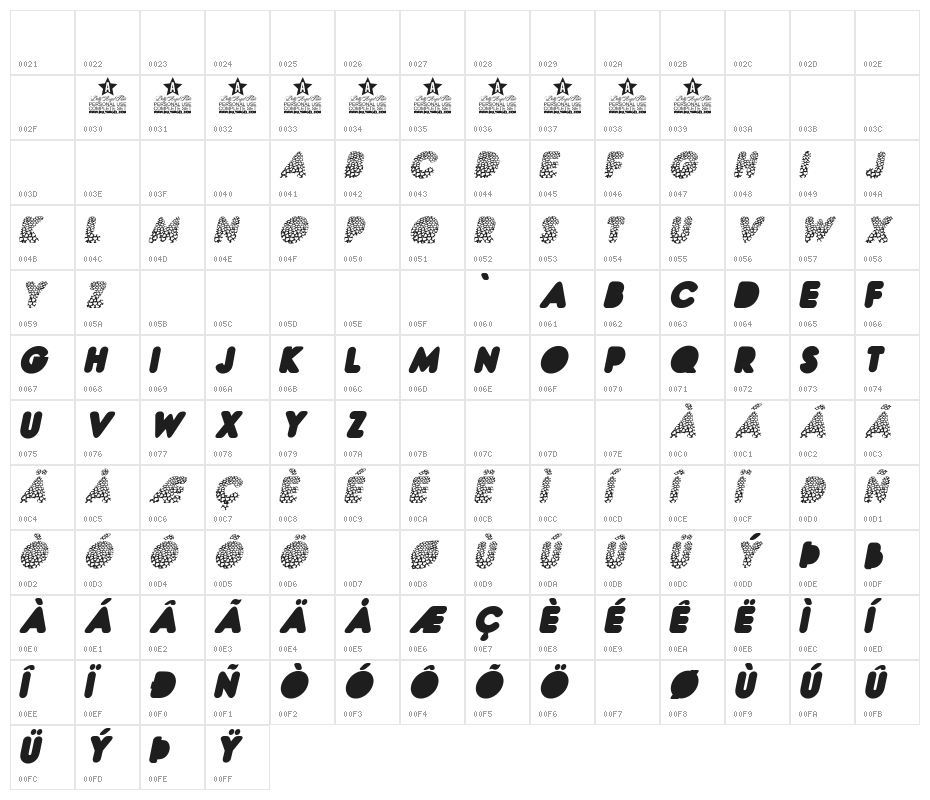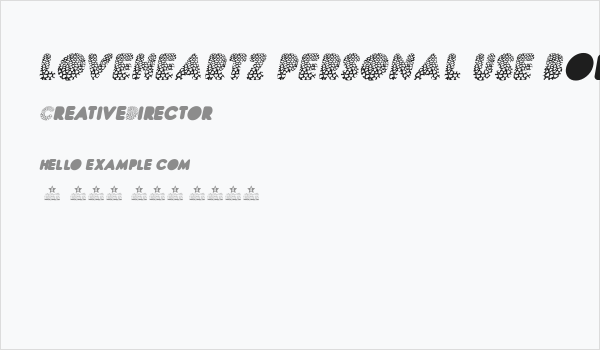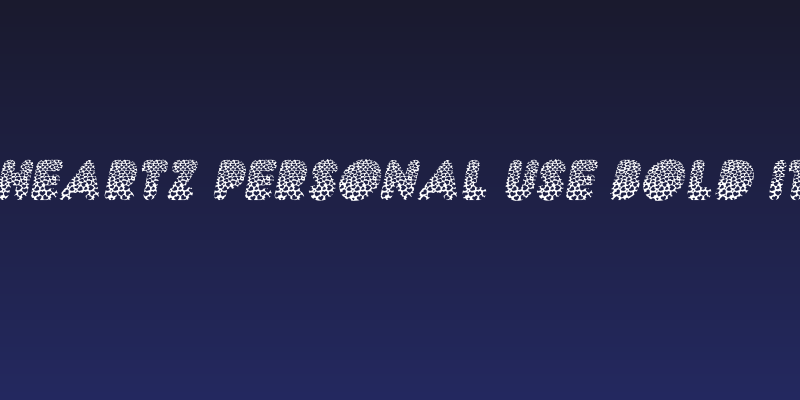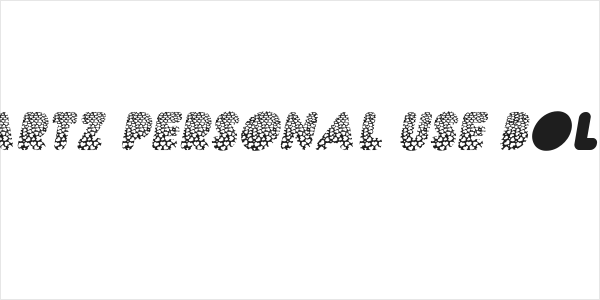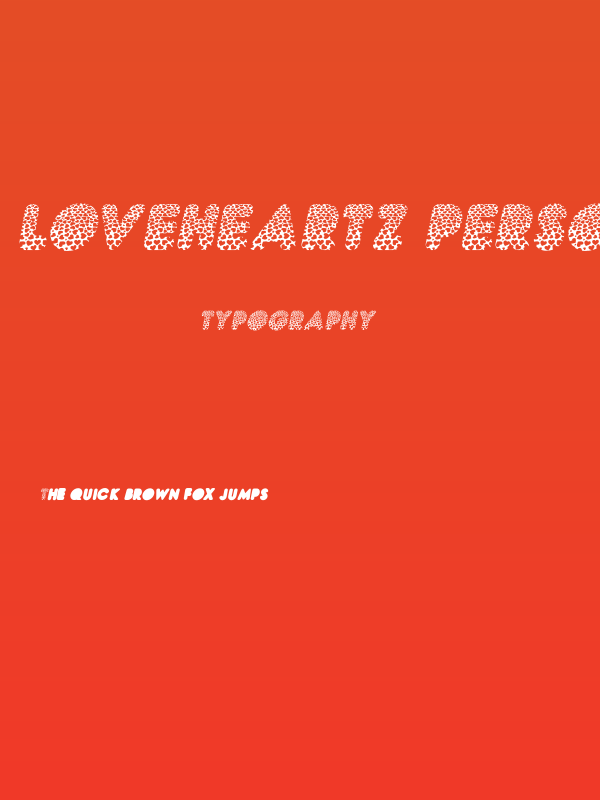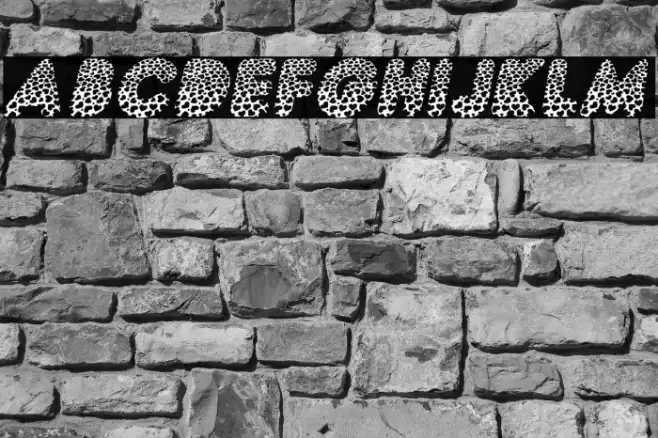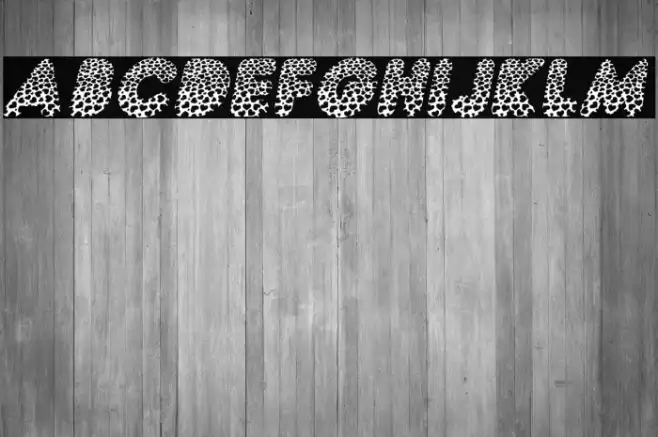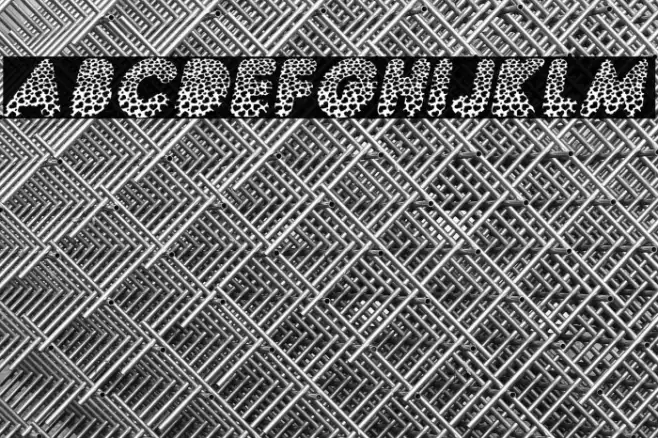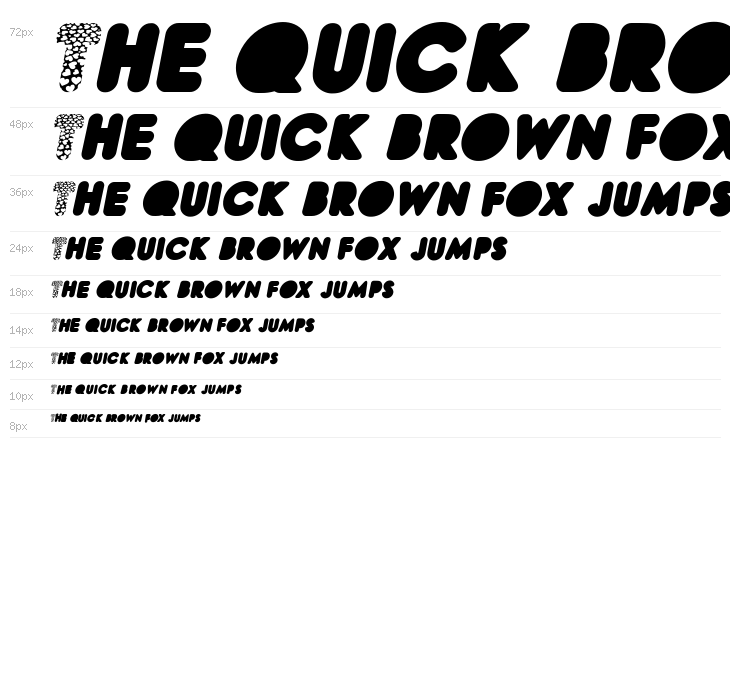
LOVEHEARTZ PERSONAL USE Bold Italic Font
LOVEHEARTZ PERSONAL USE Bold Italic Description
This playful and bold font features a unique design with heart-shaped patterns filling each letter, creating a lively and whimsical appearance. The uppercase letters are prominently displayed with a thick, rounded style that enhances their visibility and impact. The italic slant adds a dynamic and energetic feel, making it suitable for creative and fun projects. The font's decorative nature makes it stand out, perfect for designs that require a touch of romance or playfulness. Its bold weight ensures that it captures attention, while the heart motifs add a layer of charm and creativity.
| Proposed Projects | Ideal for Valentine's Day cards, wedding invitations, playful branding, and children's book covers. |